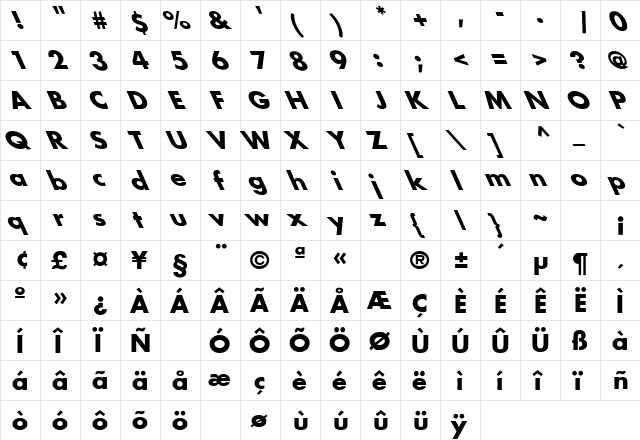
Futura-Bold Lefty Regular
Design Context for Futura-Bold Lefty Typeface
Futura-Bold Lefty has a distinctly futuristic character, with geometric precision and clean angles that feel at home in technology, gaming, and sci-fi contexts. Its bold stroke weight gives it real presence on the page.
Pro Tip: Use Futura-Bold Lefty in combination with a neutral sans for body text. Let it define the brand voice in headlines while keeping reading comfortable elsewhere.